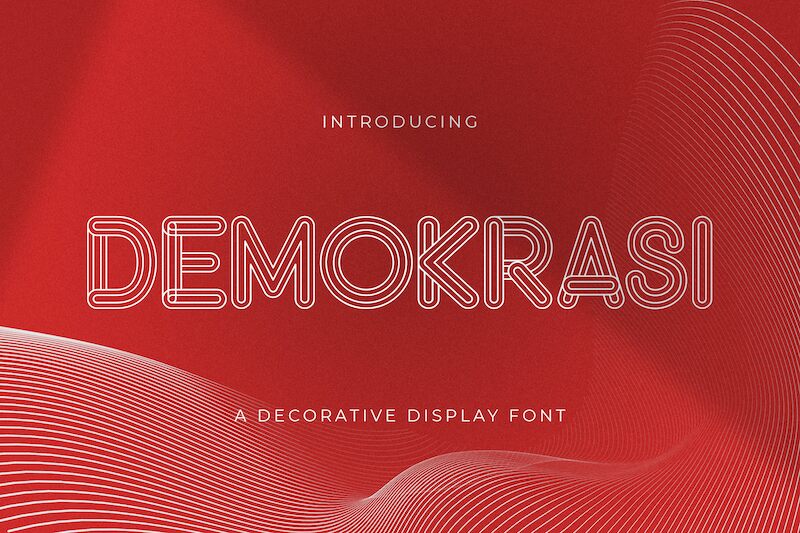
Introducing DEMOKRASI - an eye-catching and groovy display font created by Virgiawan Listanto. This bold font is perfect for creating striking headlines, logos, posters and more. DEMOKRASI will add an energetic vibe to your projects - from t-shirt designs to album covers. Let your creativity run wild with this powerful font!